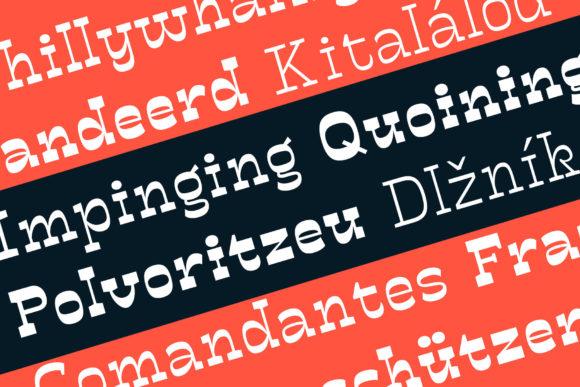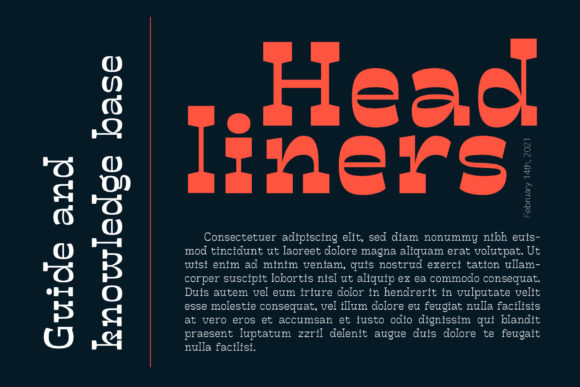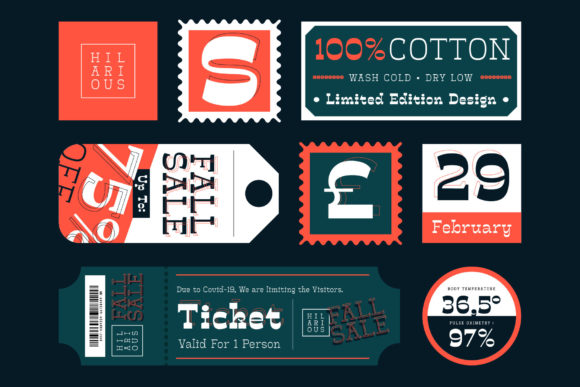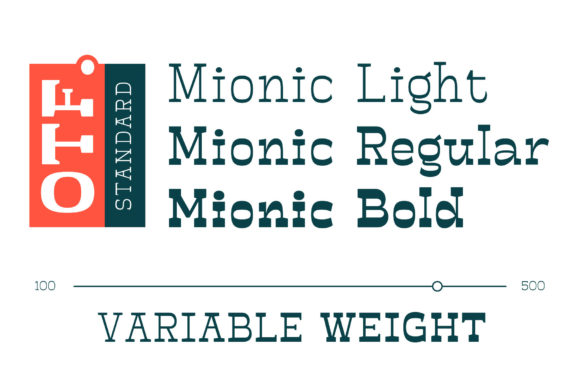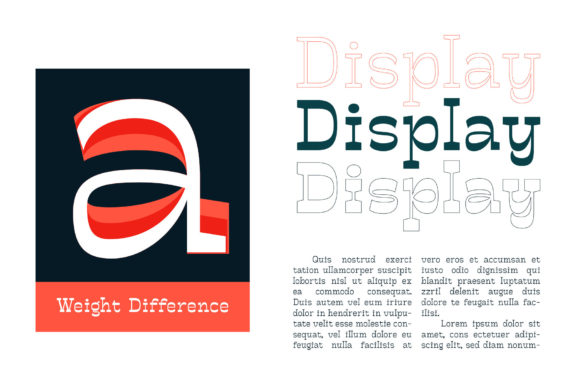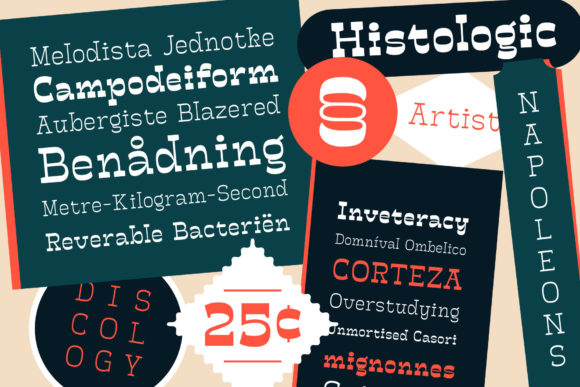
Introduction to Mionic Font
Have you ever stared at a blank page, waiting for that spark of creativity to ignite? For designers, this moment is a familiar sensation, one that can make or break a project. But what if the right font could be the key to unlocking that perfect design? Enter the Mionic Font, a high-quality display font that’s as cool as it is versatile.
With its western-inspired aesthetic and transparent background, the Mionic Font is the perfect design resource for creative projects that require a unique touch. Whether you’re crafting a business card, web design, or simply looking to add some personality to your social media posts, this font is sure to deliver. And the best part? It’s available for free download, making it an invaluable asset for designers of all levels.
Key Features of Mionic Font
- High-quality design with a transparent background, making it ideal for creative projects that require a subtle yet eye-catching visual element.
- Designed with precision, the Mionic Font features a crisp and clear resolution of 300 DPI, making it perfect for both digital and print-based projects.
- Perfect for use in creative projects, the Mionic Font’s unique characteristics and high-quality design make it an excellent choice for designers looking to add a touch of sophistication and elegance to their work.
Honest Review: Mionic Font
I recently had the chance to work with the Mionic Font, and I must say it’s a great addition to any designer’s arsenal. This high-quality font is perfect for any creative project that requires a unique and stylish touch.
One of the standout features of the Mionic Font is its transparent background, which makes it easy to customize and layer over other design elements. This is especially useful for designers who want to create a cohesive and professional-looking design.
Here are some of the things that work well with the Mionic Font:
- High-quality design: The font is well-crafted and looks great on any screen resolution.
- Easy to customize: The transparent background makes it easy to layer over other design elements.
- ⚠️ Limited font styles: The font only comes in a few styles, which may not be suitable for every project.
- ⚠️ Not ideal for body text: The font is best used for headings and titles, as it can be difficult to read in large blocks of text.
Overall, I’m impressed with the Mionic Font and would recommend it to designers who are looking for a unique and stylish font for their creative projects. With its high-quality design and transparent background, it’s a great resource to have in your design toolkit.
Tips for Getting the Most Out of Mionic Font
For optimal results, use Mionic Font in conjunction with a high-quality design resource, such as a professional image or a well-designed template. Experiment with different font sizes, colors, and combinations to find the perfect look for your project.
Mionic Font is perfect for a variety of creative projects, including logos, branding materials, social media graphics, and presentations. Its unique design and transparent background make it a versatile tool for designers and non-designers alike.